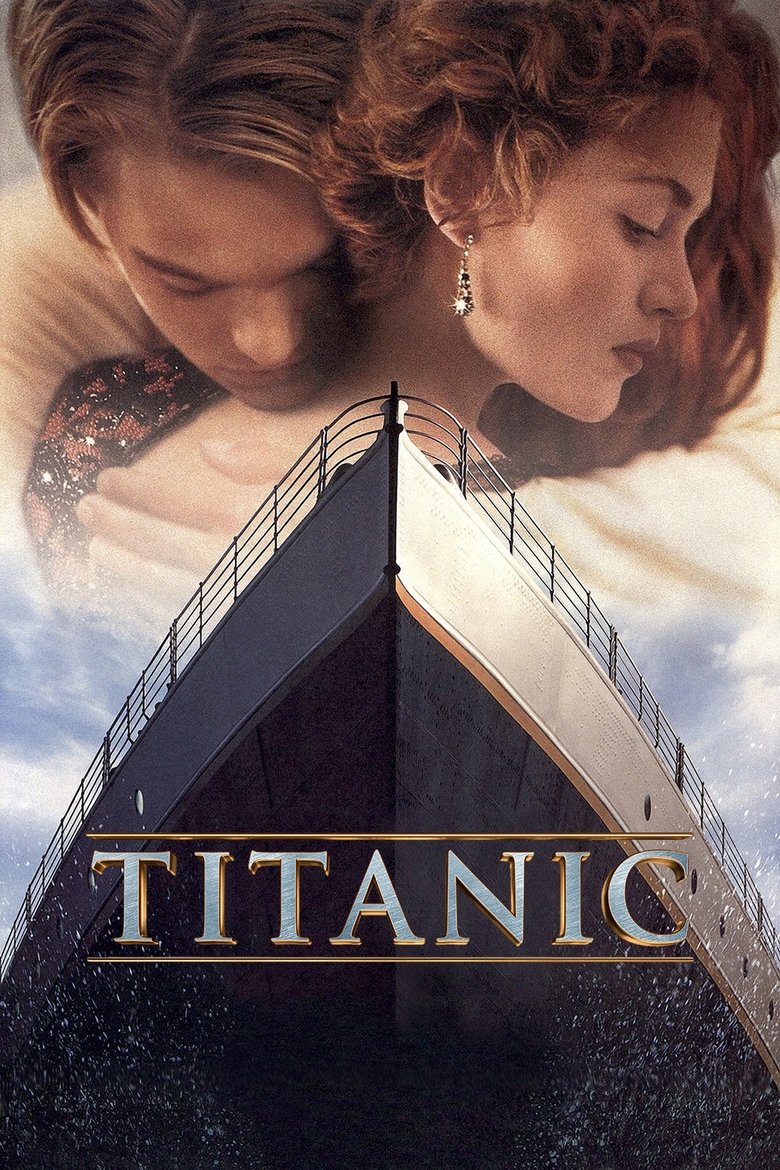
TITANIC
About the Titanic font
Titanic's title is an elegant engraved serif. Cinzel captures that grand, ill-fated romance for freely usable text.
What font is used in the Titanic logo?+
The original Titanic logo uses custom lettering. This generator recreates the look with Cinzel — a free, open-license font you can style and download.